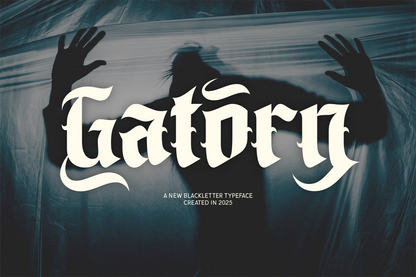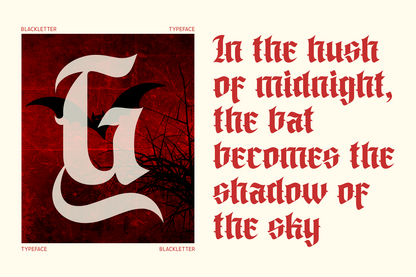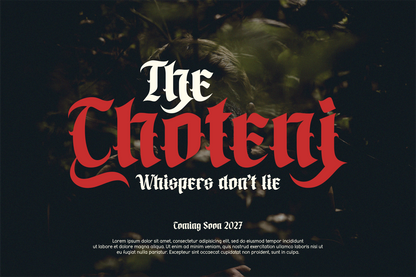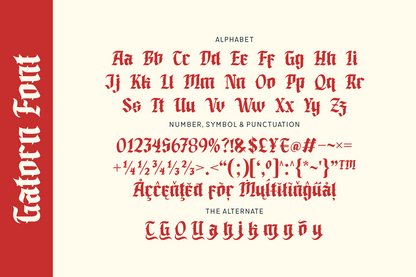
Gatorn is a modern gothic blackletter font blending sharp edges with smooth curves. Great for horror themes, fantasy book covers, and branding that needs a mysterious, dark vibe.